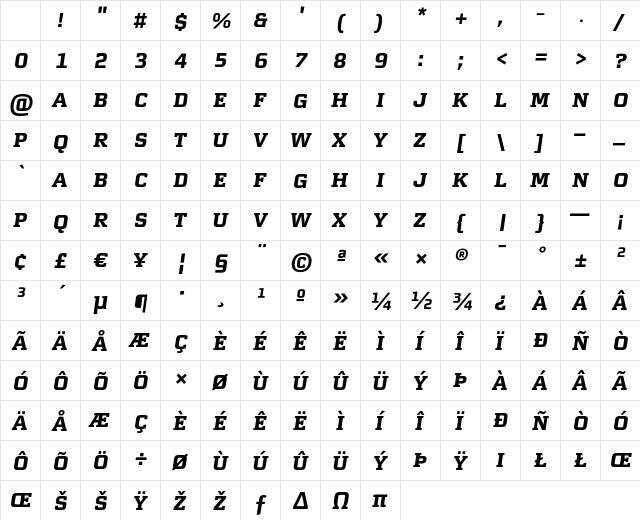
Complete MorganAvec Bold ItalicCaps glyph index. Displaying only characters natively supported by MorganAvec Bold ItalicCaps font.
MorganAvec is a composed and adaptable typeface that performs quietly and consistently across a wide range of design contexts. The slanted form adds forward momentum and visual energy. Its bold stroke weight gives it real presence on the page.
Pro Tip: Use MorganAvec for emphasis, pull quotes, and subheadings where its slanted energy can add rhythm to the layout.